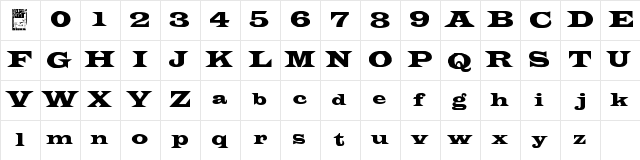
Furore Mexico Plain Regular Free Font
Furore Mexico Plain Regular
Design Context for Furore Mexico Plain
Furore Mexico Plain is a composed and adaptable typeface that performs quietly and consistently across a wide range of design contexts.